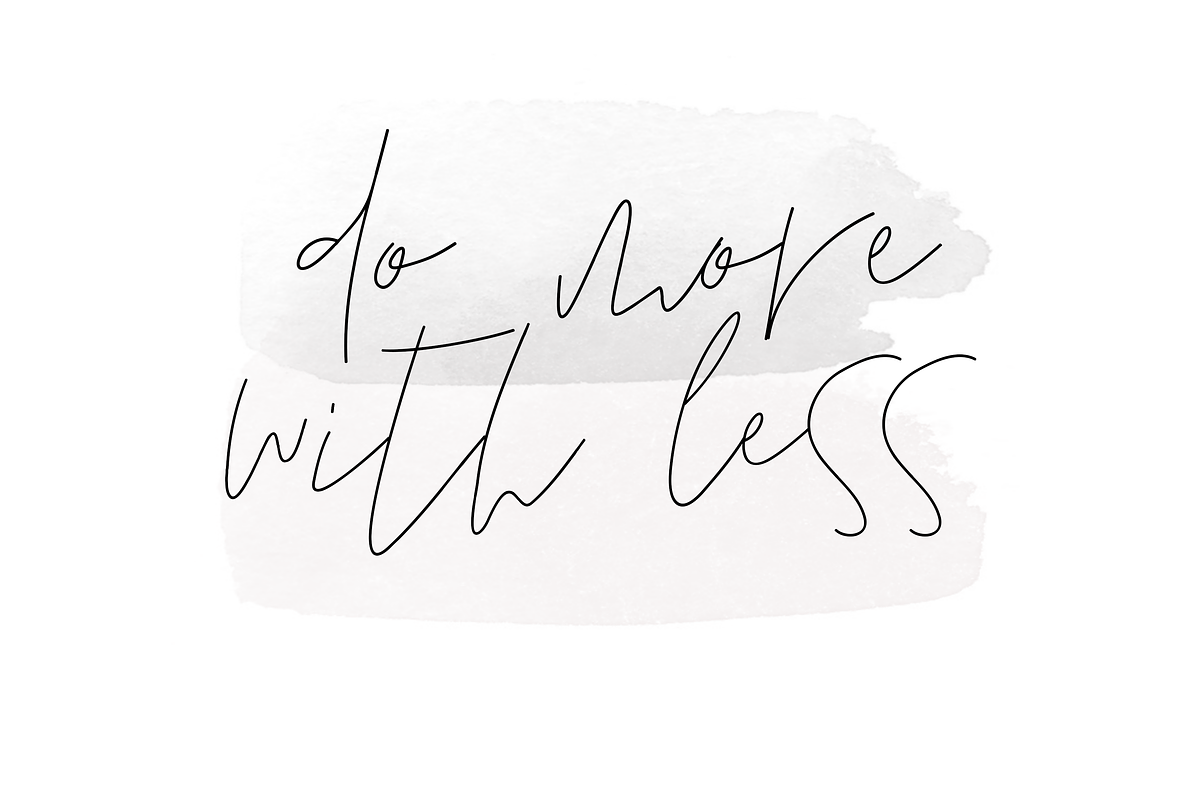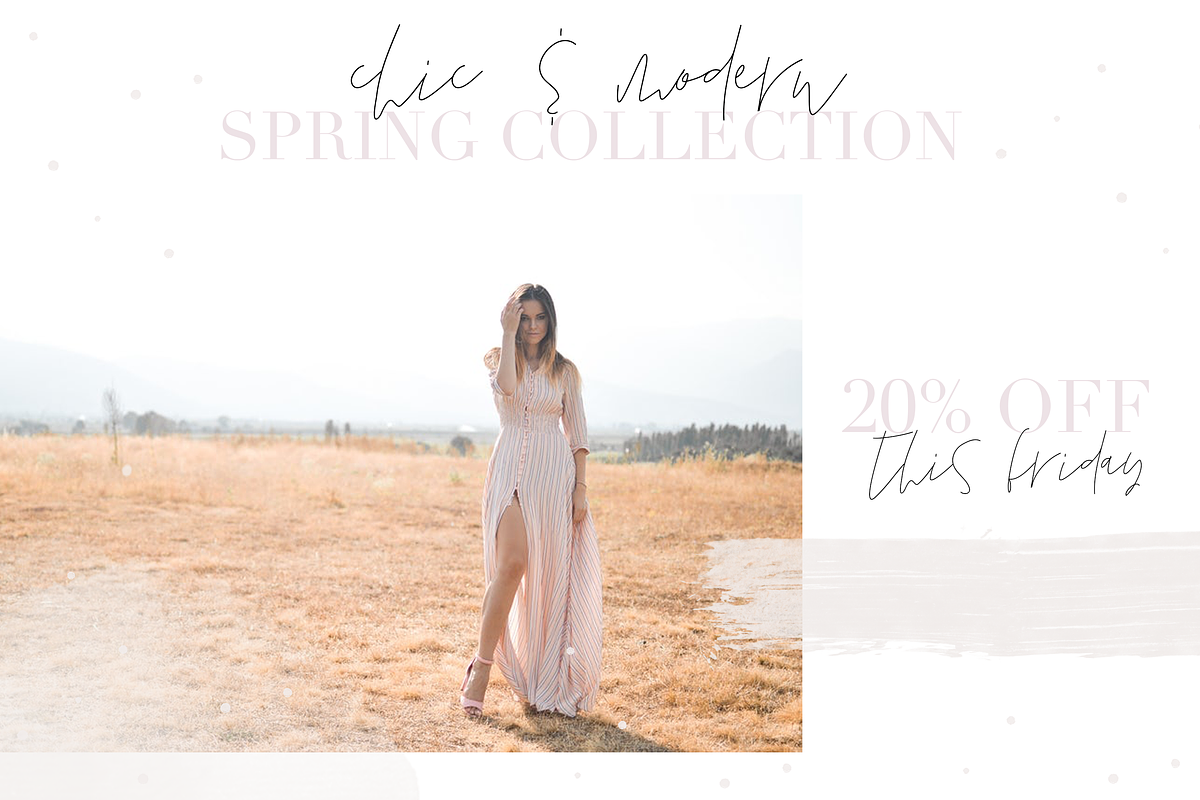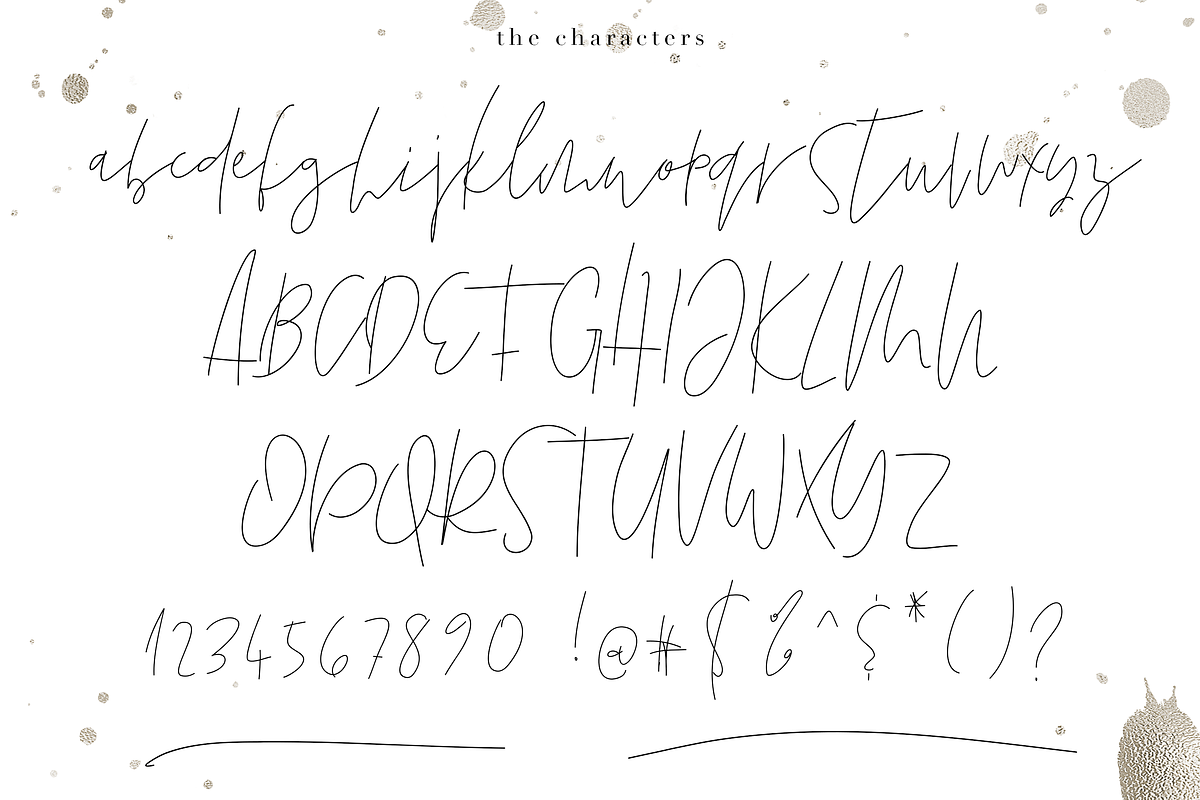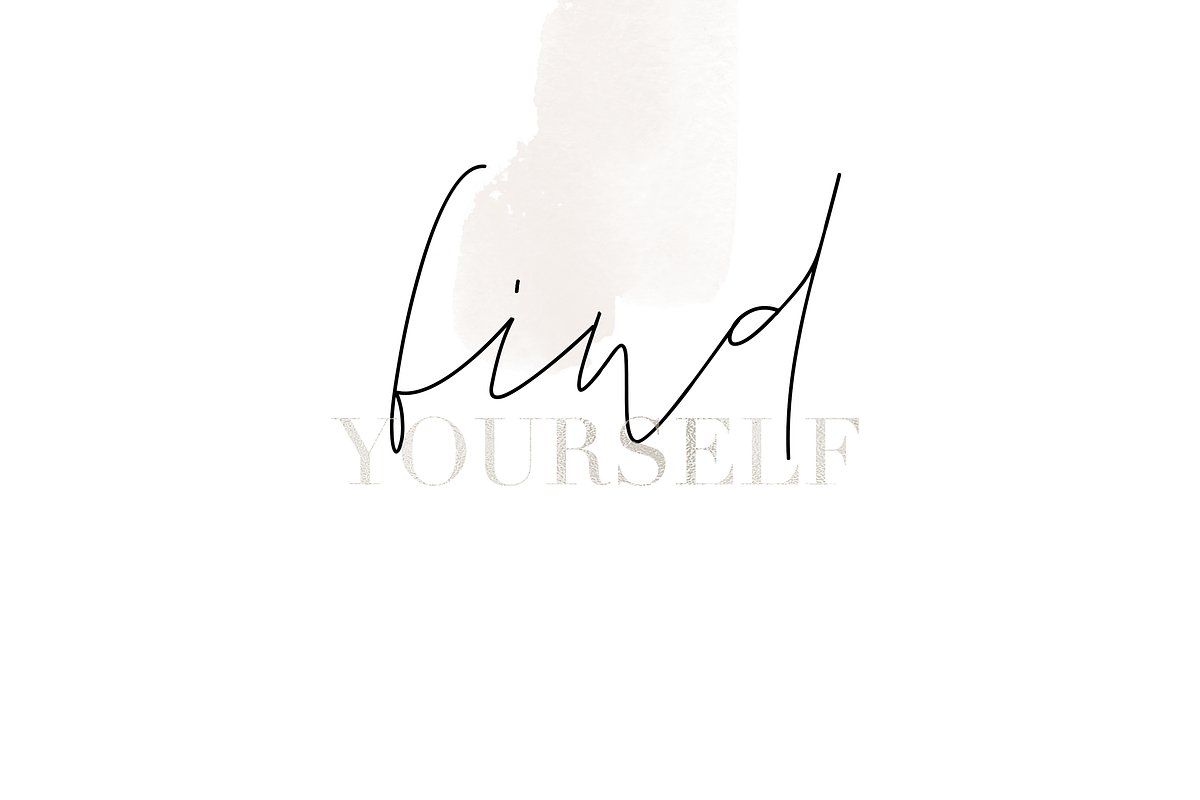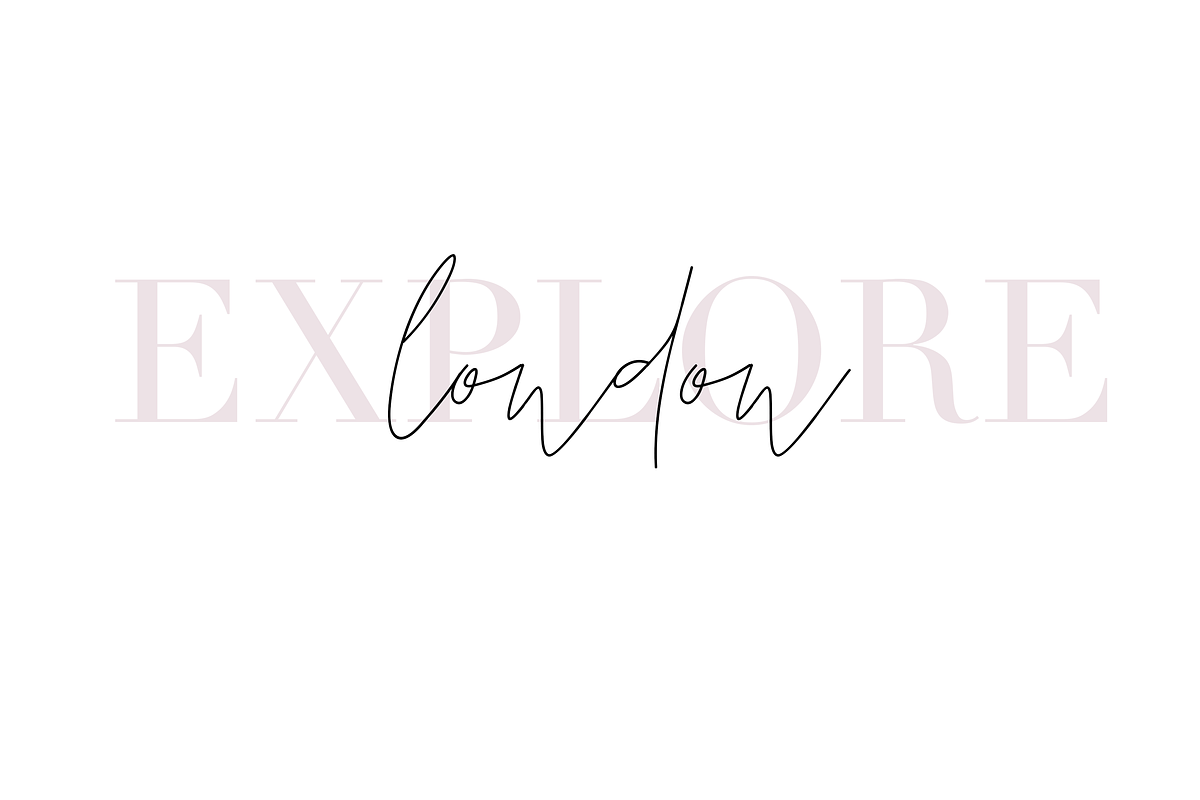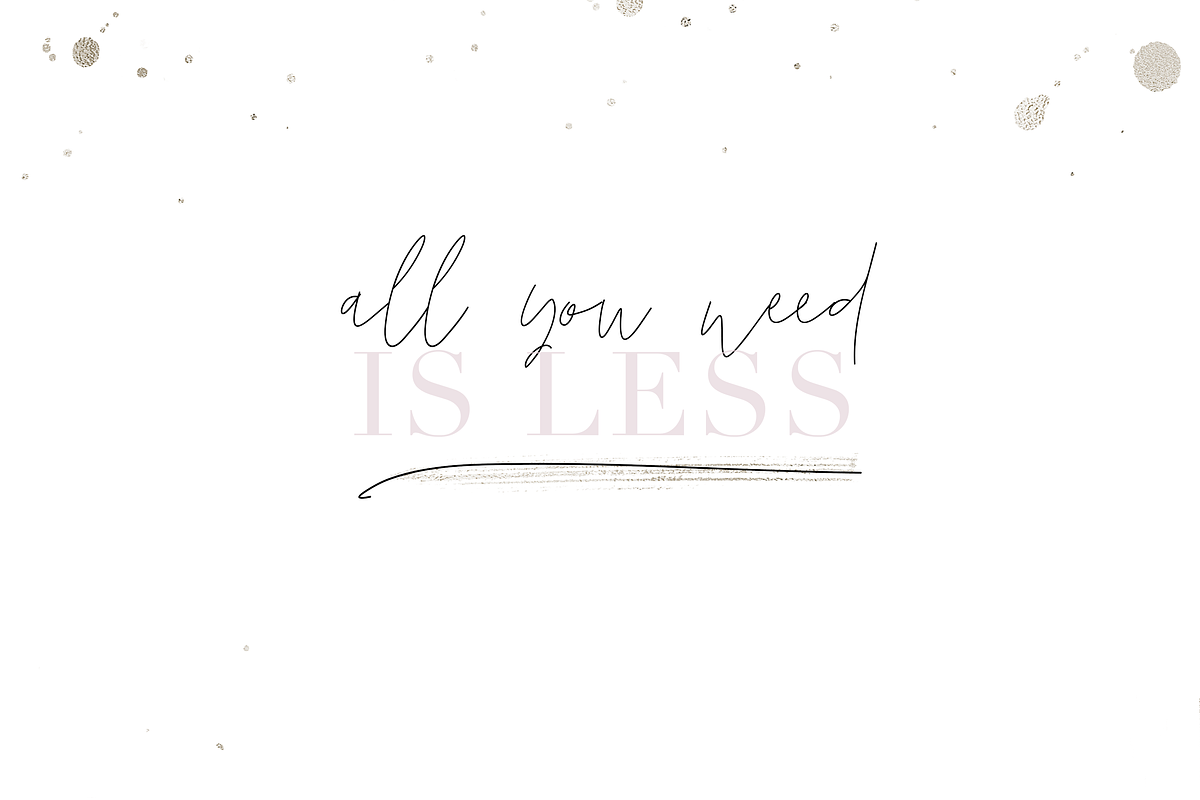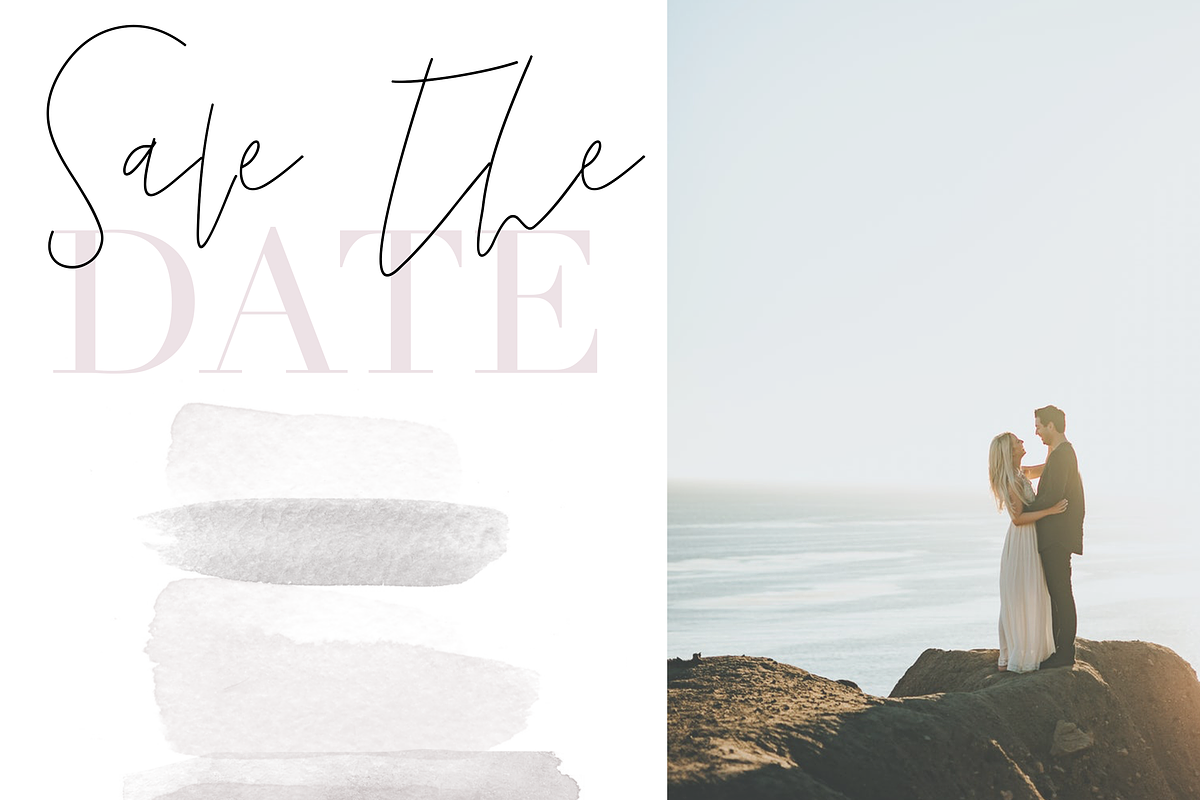
Friday - Chic Signature Font
Friday is a chic handwritten - signature font. This font is perfect for quotes, headings, blogs, logos, invitations and more!
This font does include accent characters. There are two underline swatches included. They can be accessed by hitting ( shift + . ) and ( shift + , )
- There are no extra ligatures - I like to keep it simple.